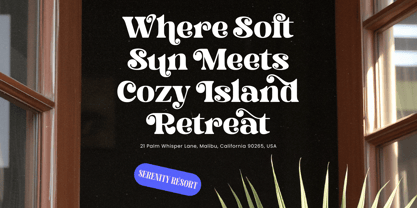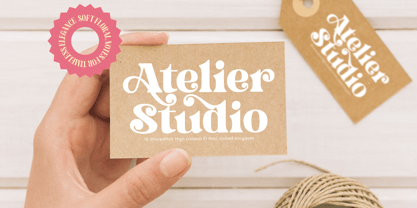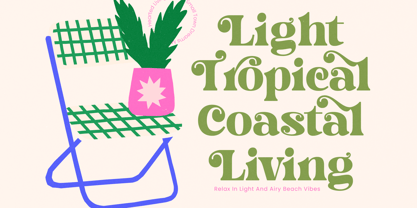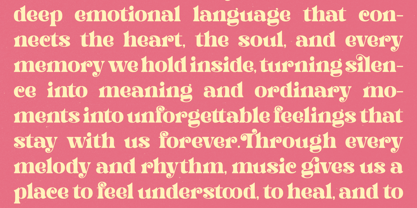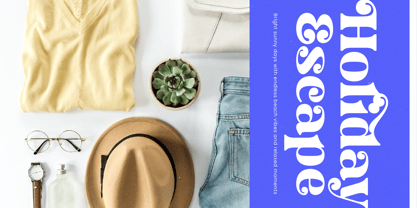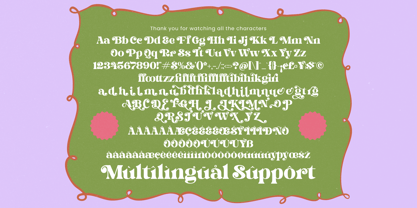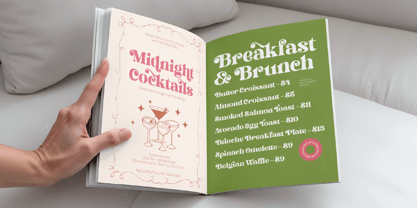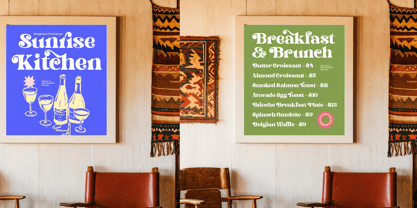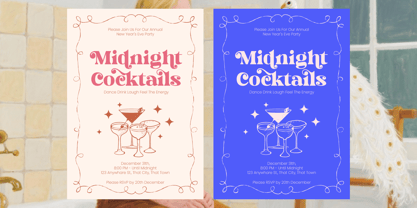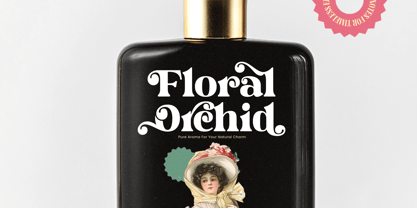
Dream Shine
La familia tipográfica Dream Shine fue diseñada por Heru Utama Putra y publicada por Timelesstype Studio. Dream Shine contiene 2 estilos y opciones de paquete familiar. Más información sobre esta familia
Dream to Shine is a playful vintage serif crafted with bold curves, charming swashes, and expressive retro personality. Designed to bring warmth and character to modern branding, this typeface blends soft, rounded forms with stylish decorative details—making it ideal for café menus, fashion labels, packaging, social media graphics, editorial titles, and nostalgic posters. Featuring 16 ligatures, 53 alternates, and full multilingual support, Dream to Shine delivers versatile typography that works beautifully across both display and signature-style layouts. Its friendly yet refined aesthetic gives every project a lively, welcoming, and visually captivating touch.